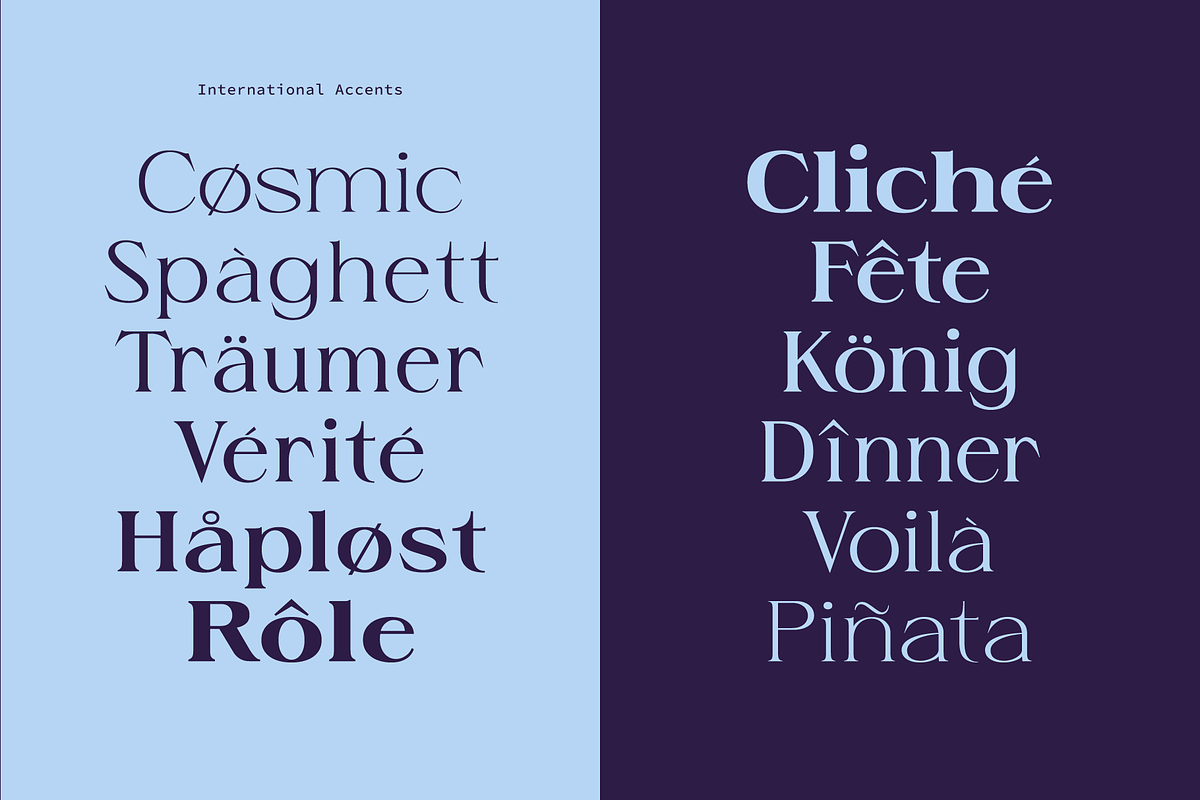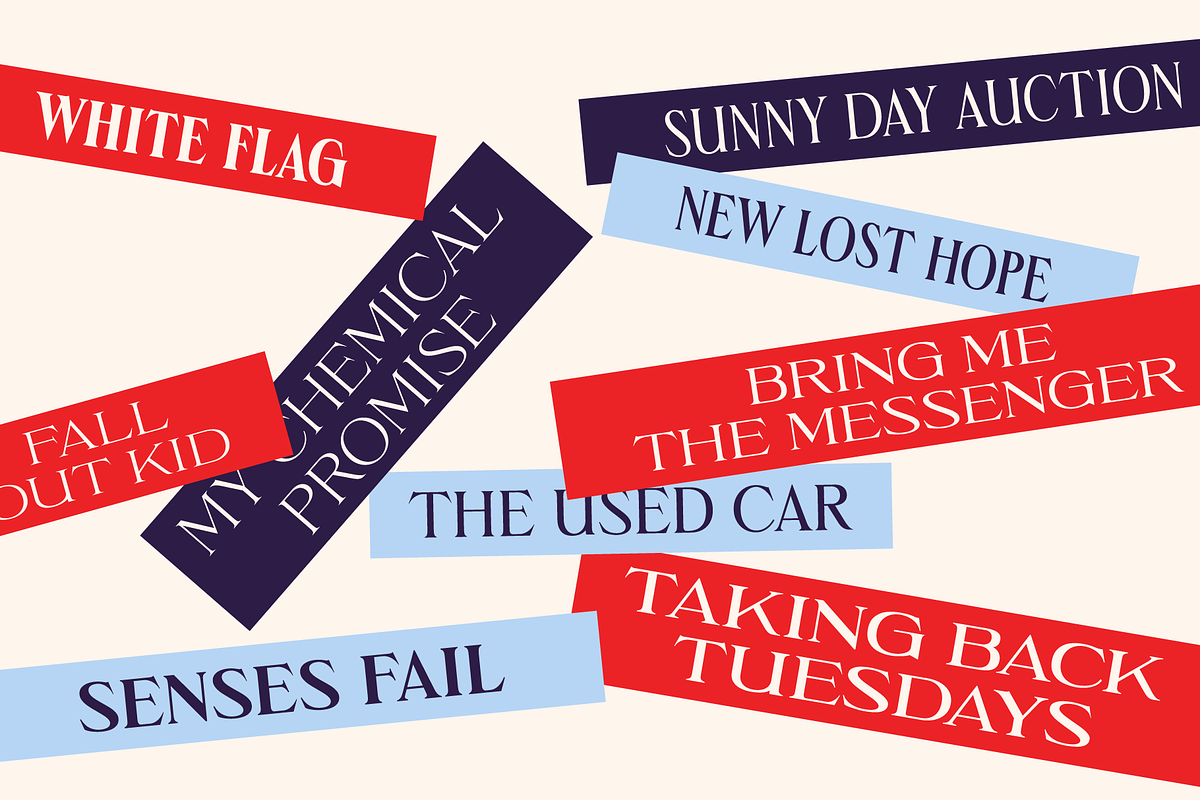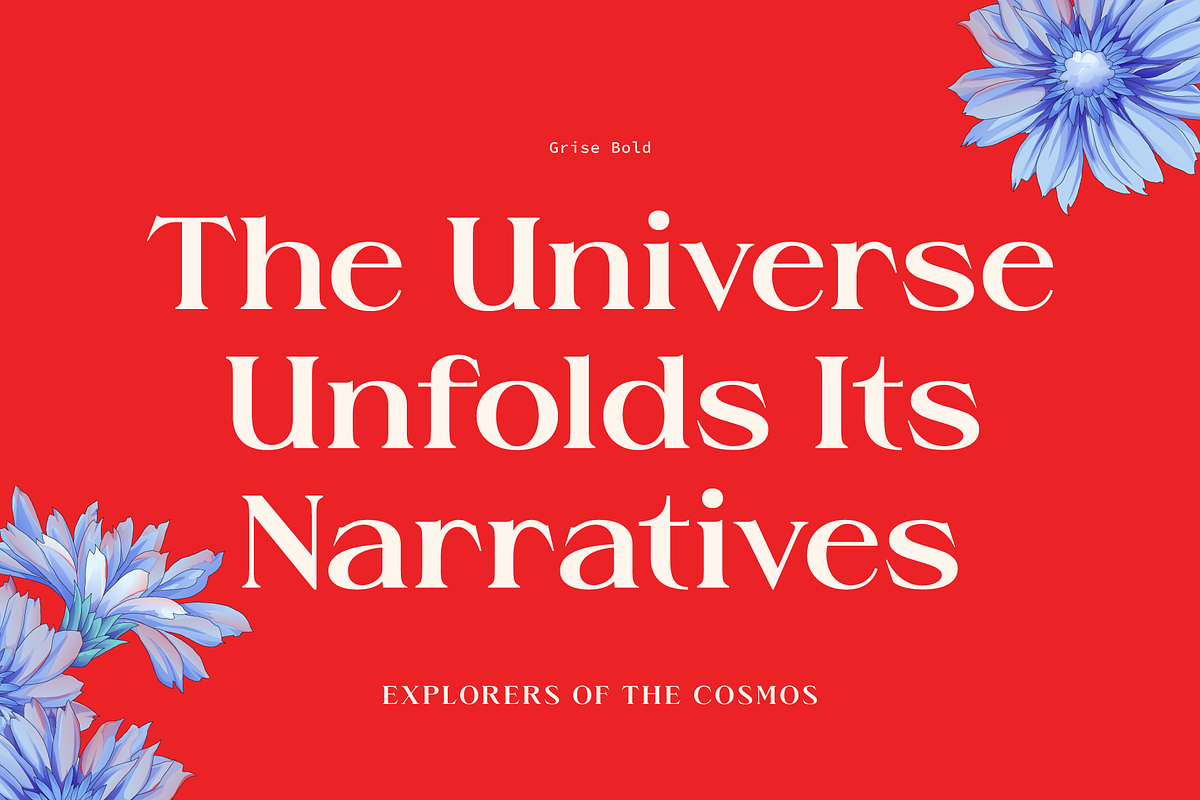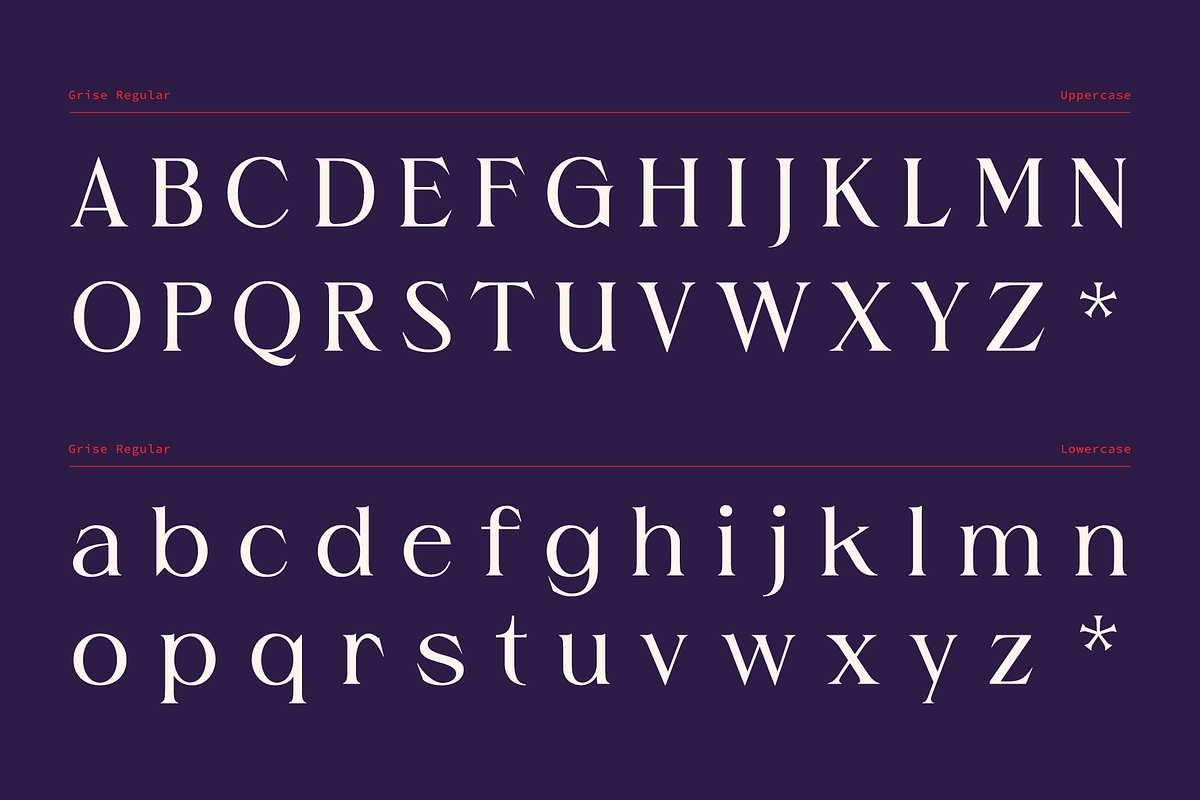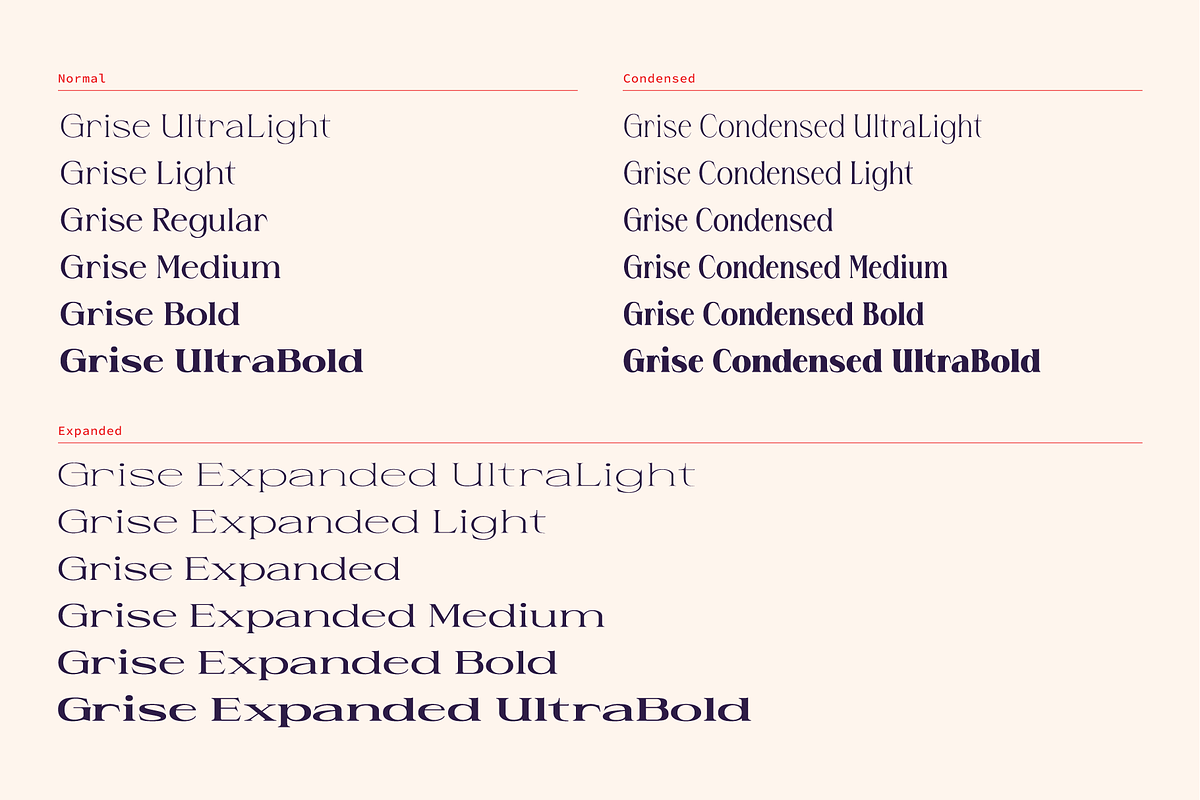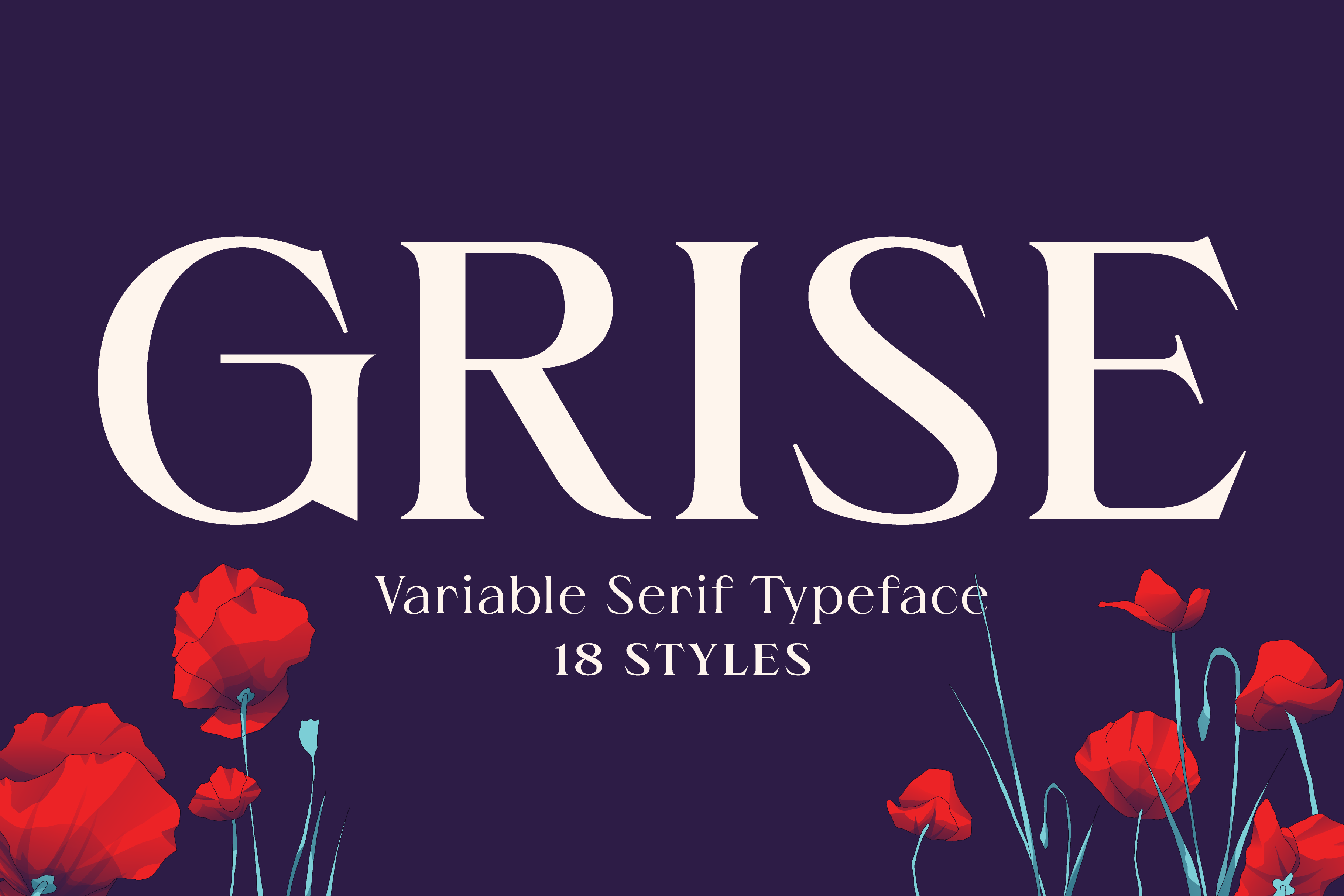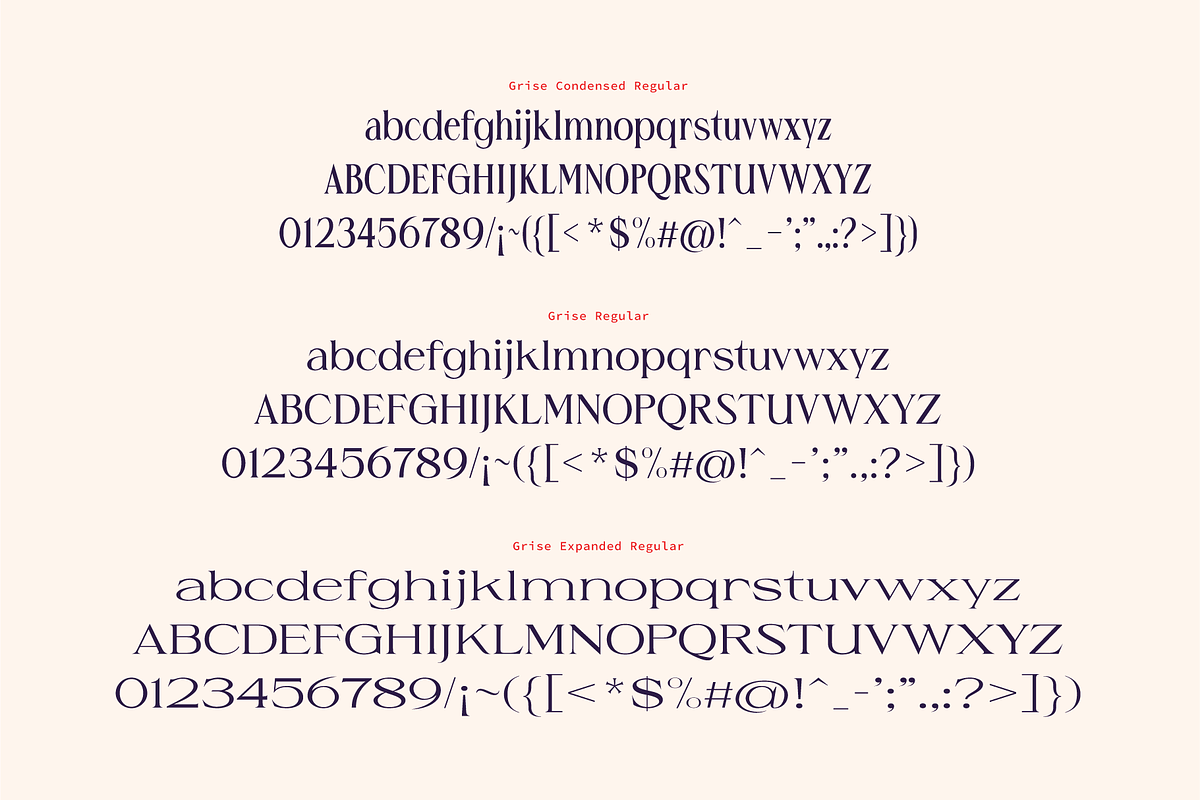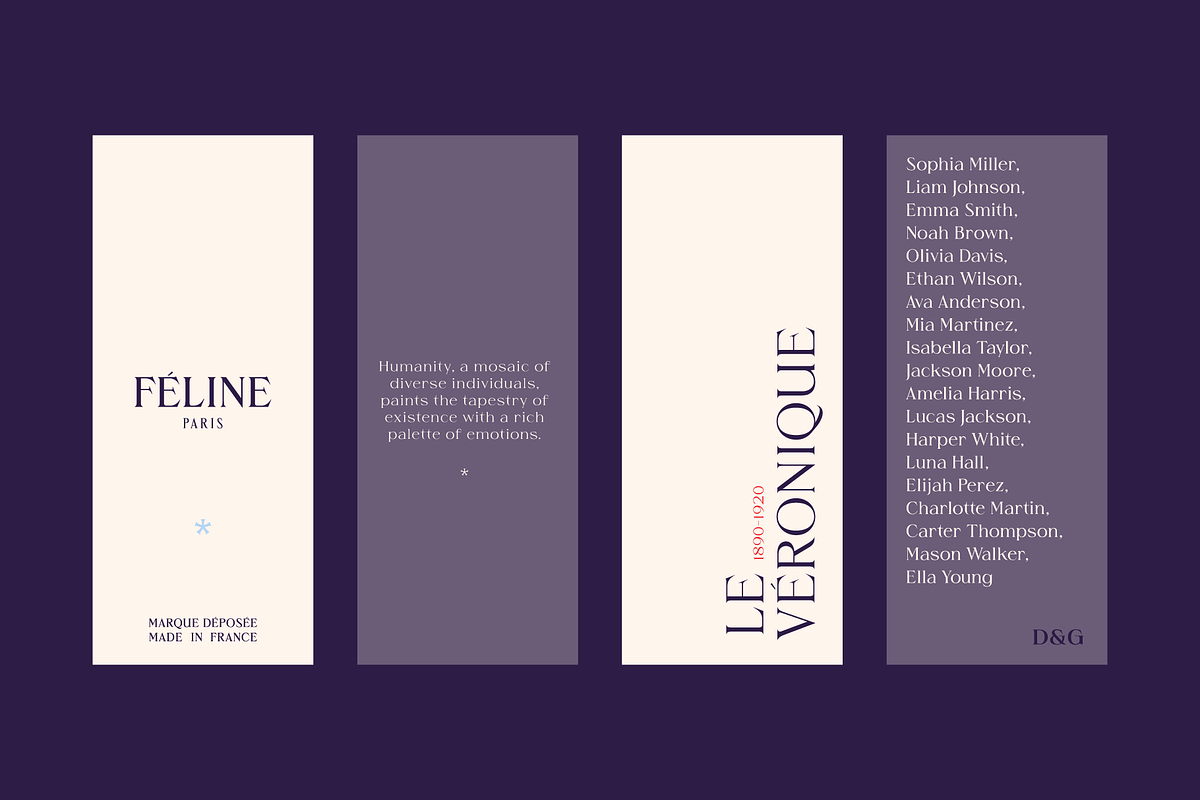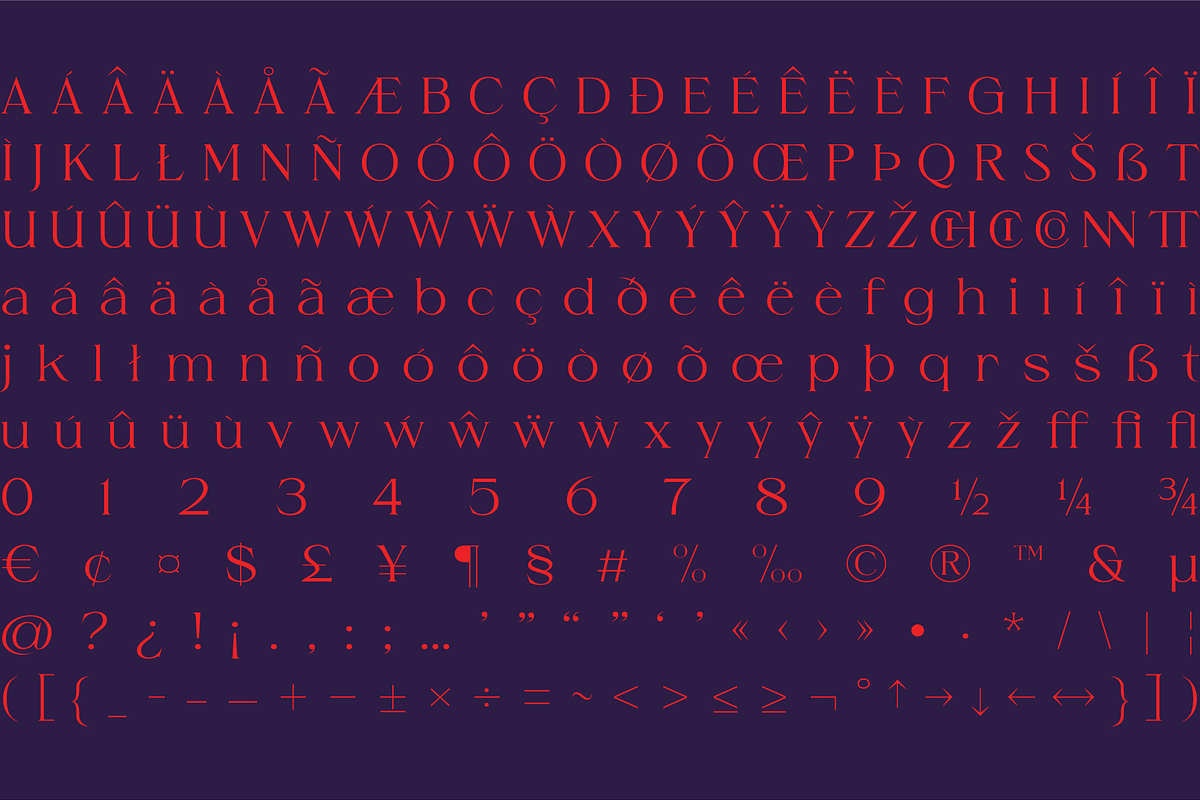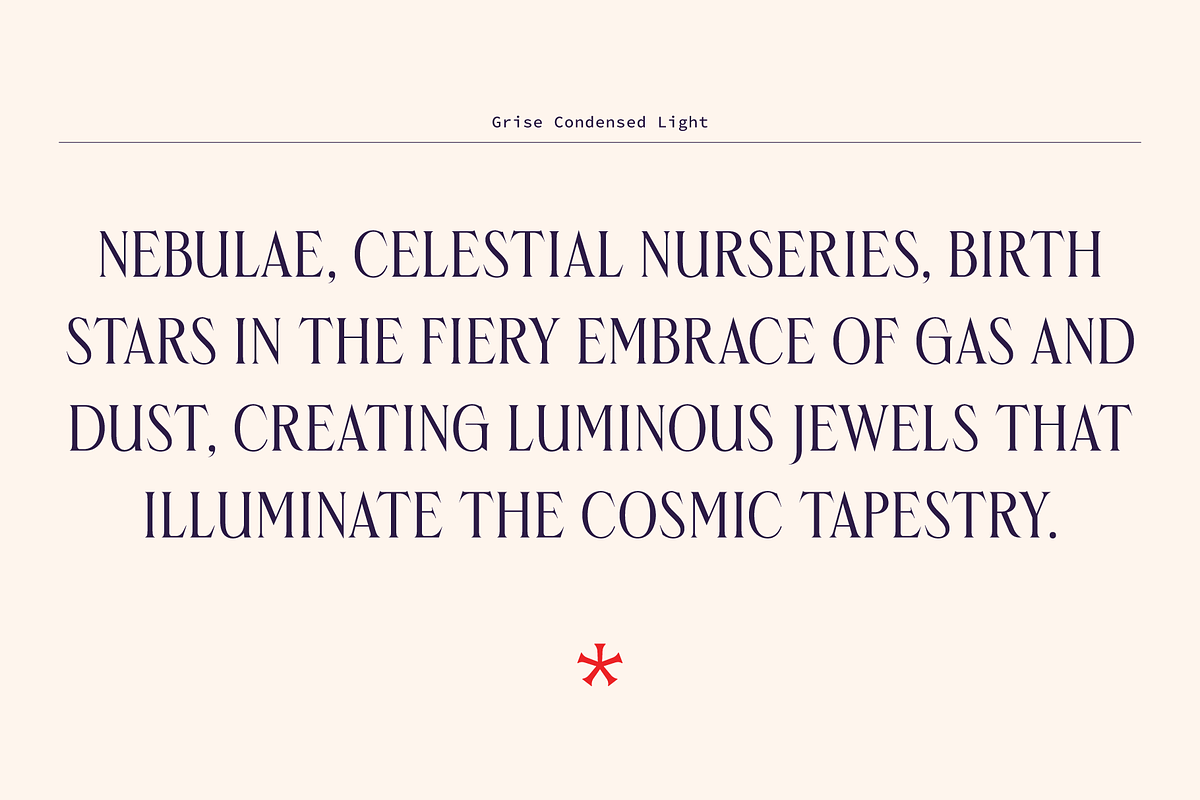
Grise - Variable Serif (18 Fonts)
Grise is a display serif variable font developed on two axes: width and weight. Drawing inspiration from 90s sci-fi anime and game title logos, Grise captures a sense of nostalgia combined with contemporary design.
The appearance changes significantly between styles (6 weights, 3 widths), allowing adaptable use in various contexts. Grise is perfect for headlines, titles, logos, and depending on the weight, it could also work in a mid-sized body text.
Designed by Oshtru, 2023.